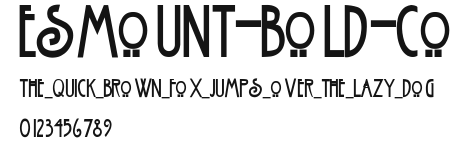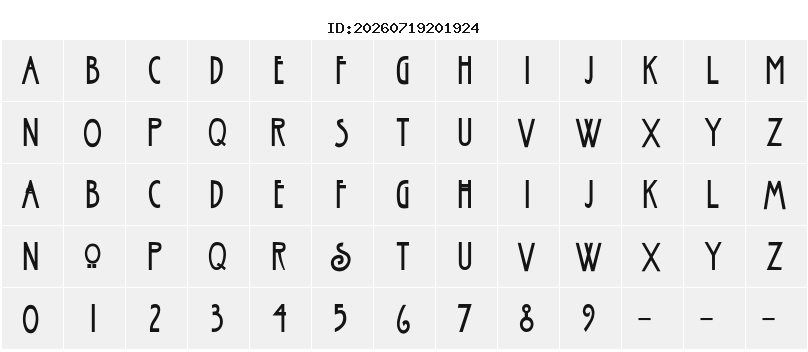
About Esmount-Bold-Co.ttf
Esmount-Bold-Co.ttf is a modern, elegant sans-serif font designed for ultimate readability and visual harmony. Perfect for branding, headlines, web design, and print materials.